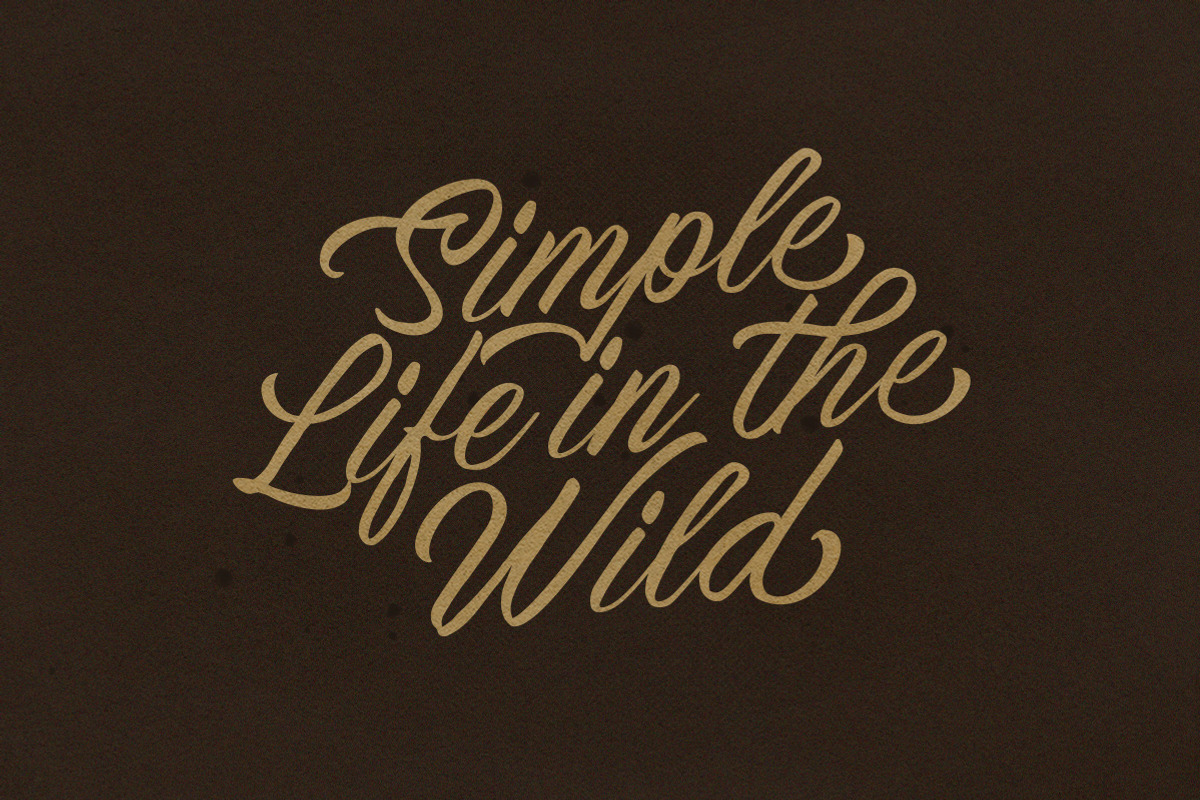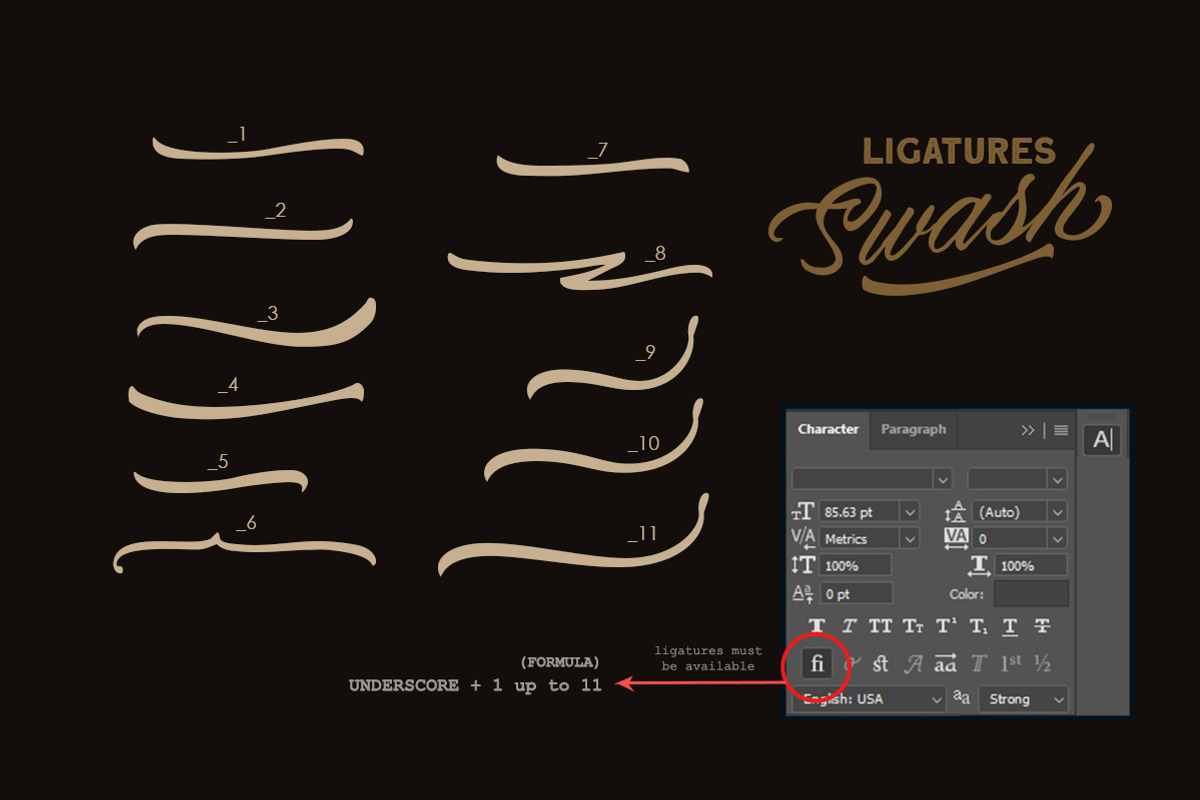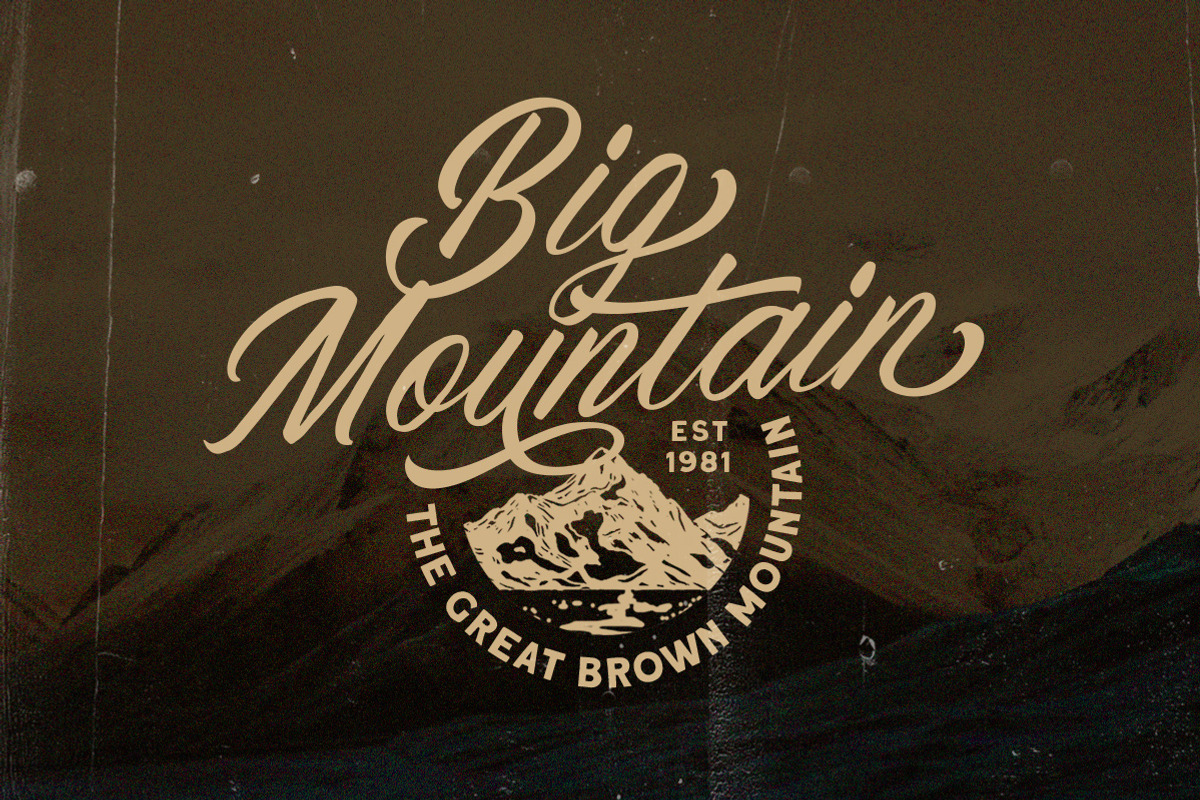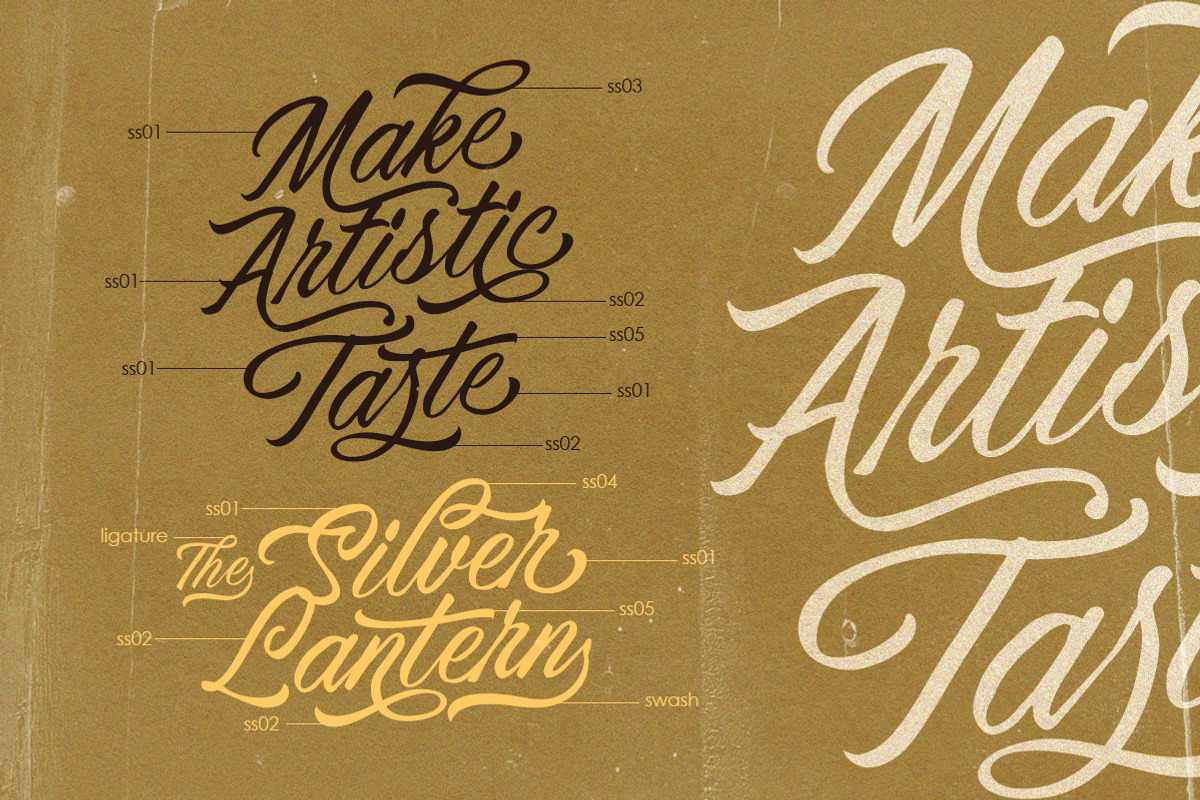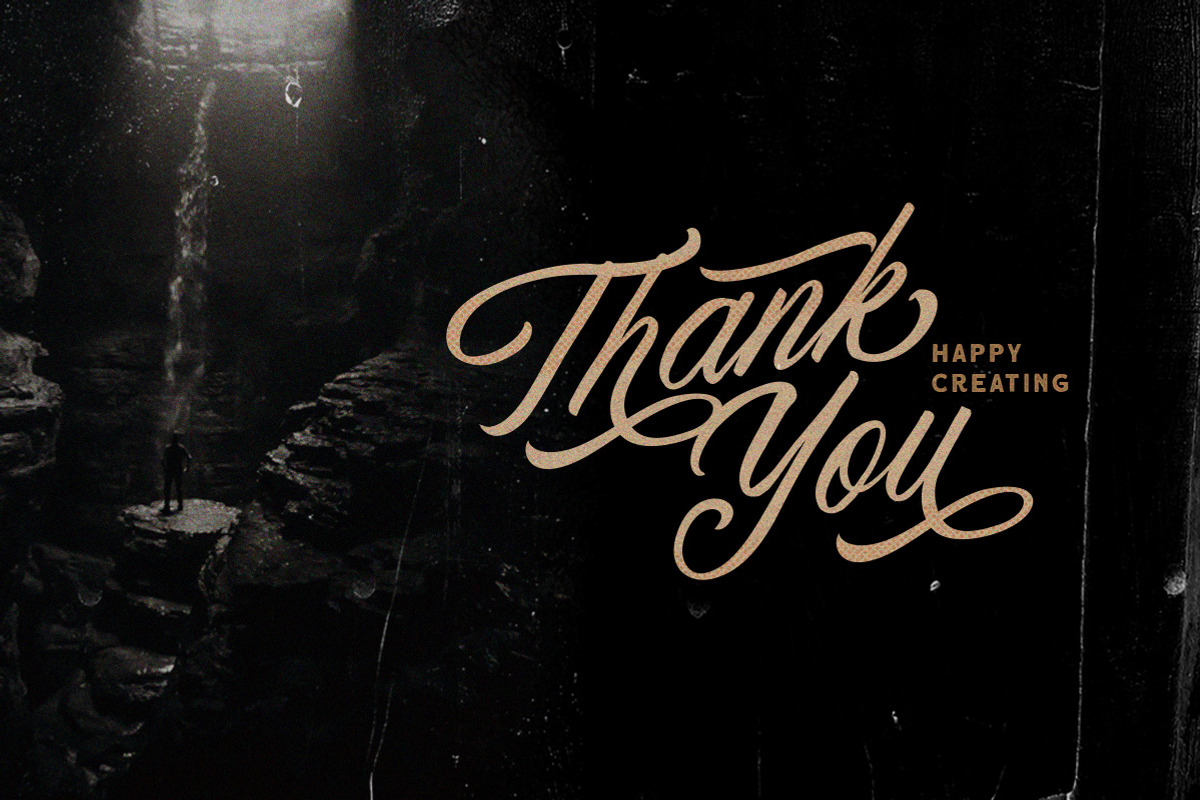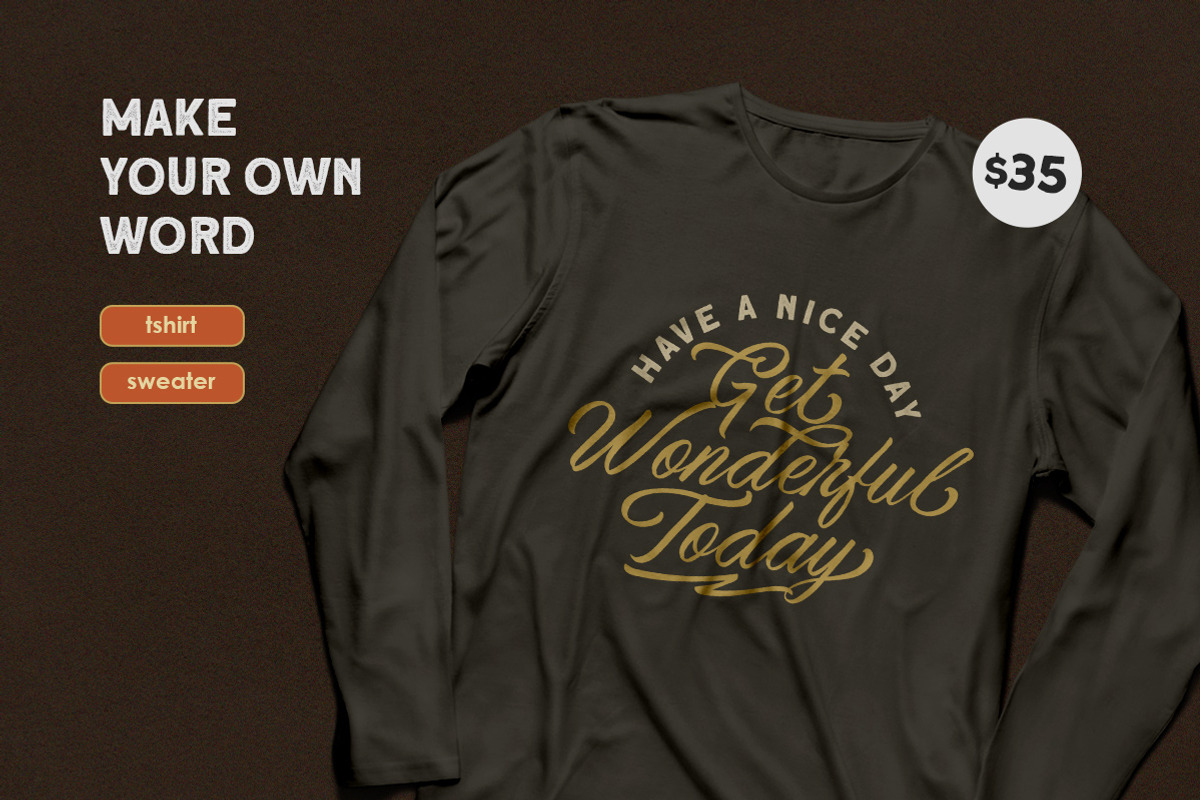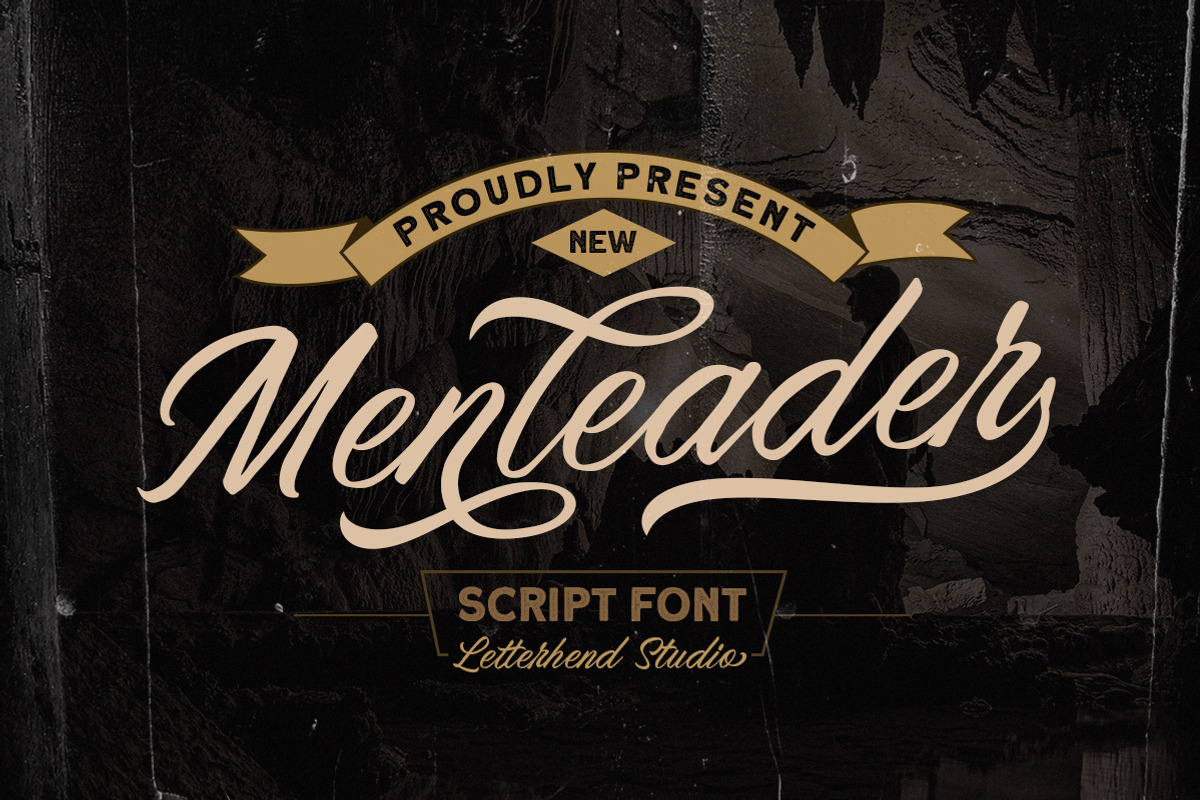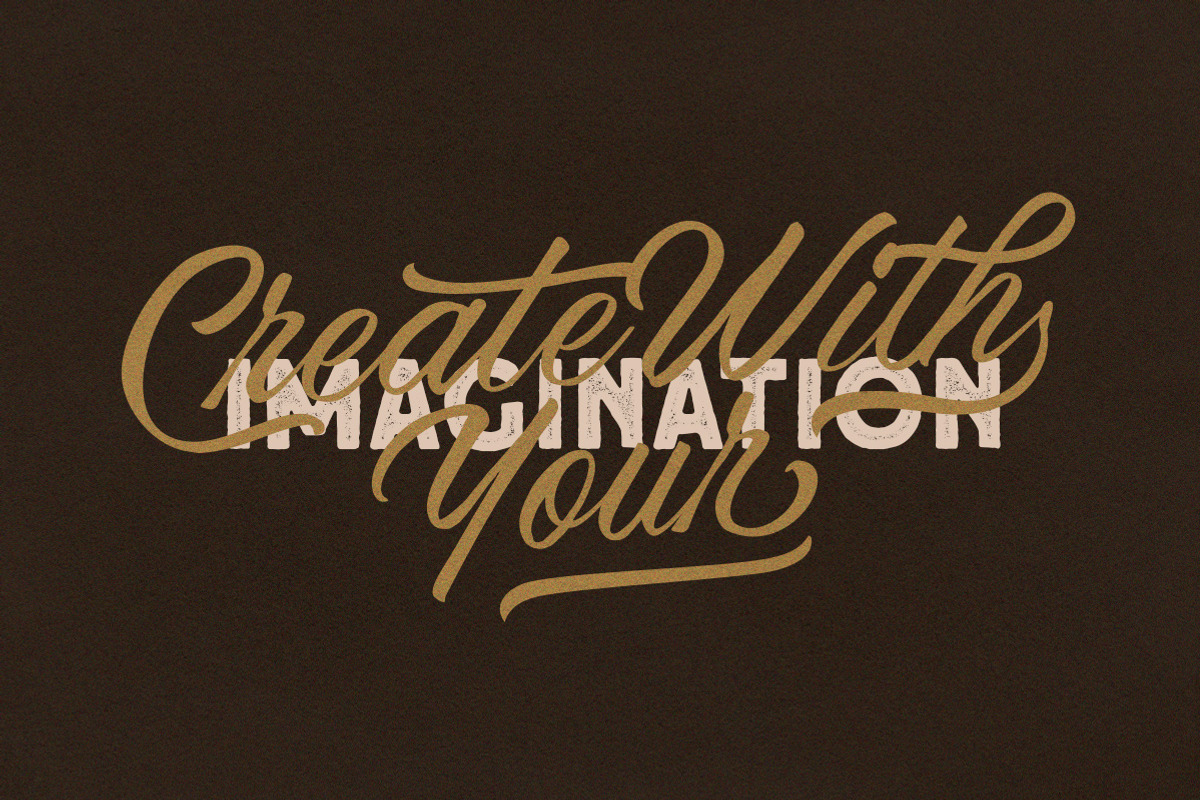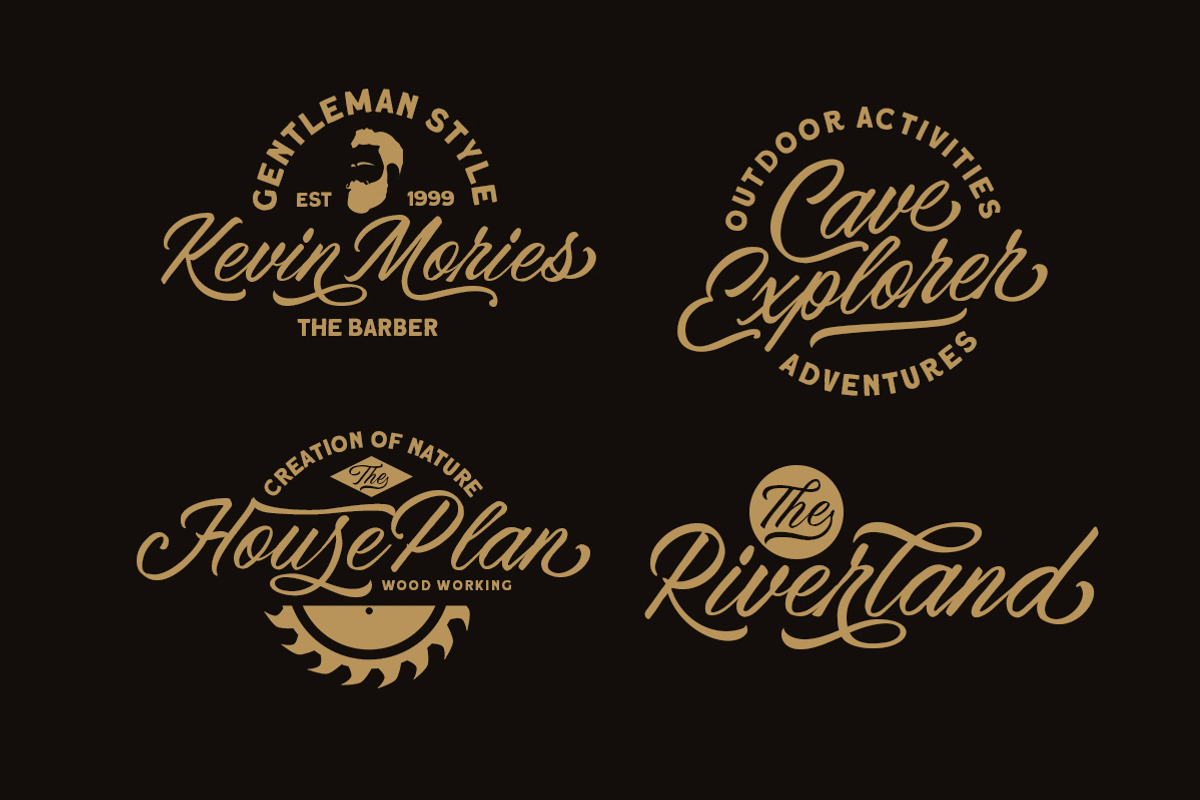
Menleader - Script font
Introducing, Menleader - a standout script with a touch of vintage look and feel. This type of font perfectly made to be applied especially in logo, headline, signage and the other various formal forms such as invitations, labels, logos, magazines, books, greeting / wedding cards, packaging, fashion, make up, stationery, novels, labels or any type of advertising purpose.
- alternates / swashes and ligatures